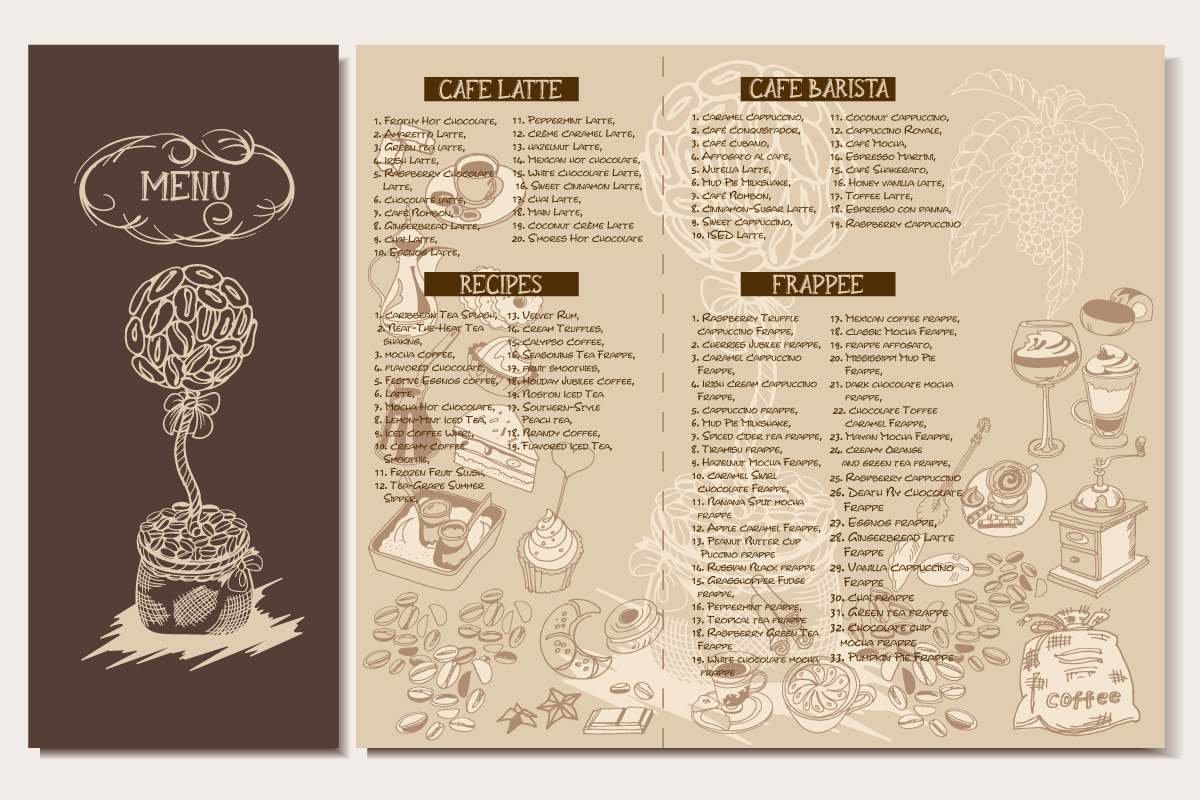
Coffee Dream Font
Coffee Dream Display Font
It’s a simple textured display font with casual letter shapes that will make it looks original handwriting looks. The for is designed exclusively by CalligraphyfFonts.net and it will be perfect for use in business card, product designs, signage, quote, title. This time serif with different look. This font that is simple readable, smart and stylish.